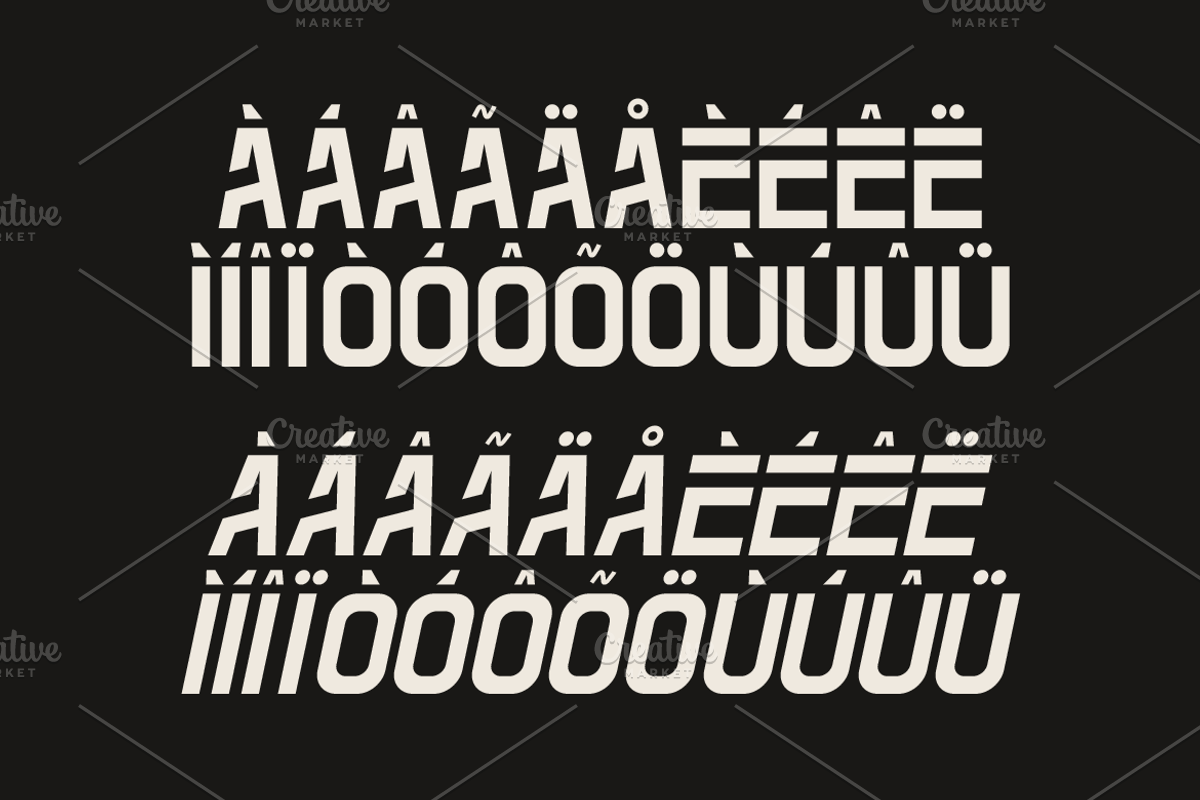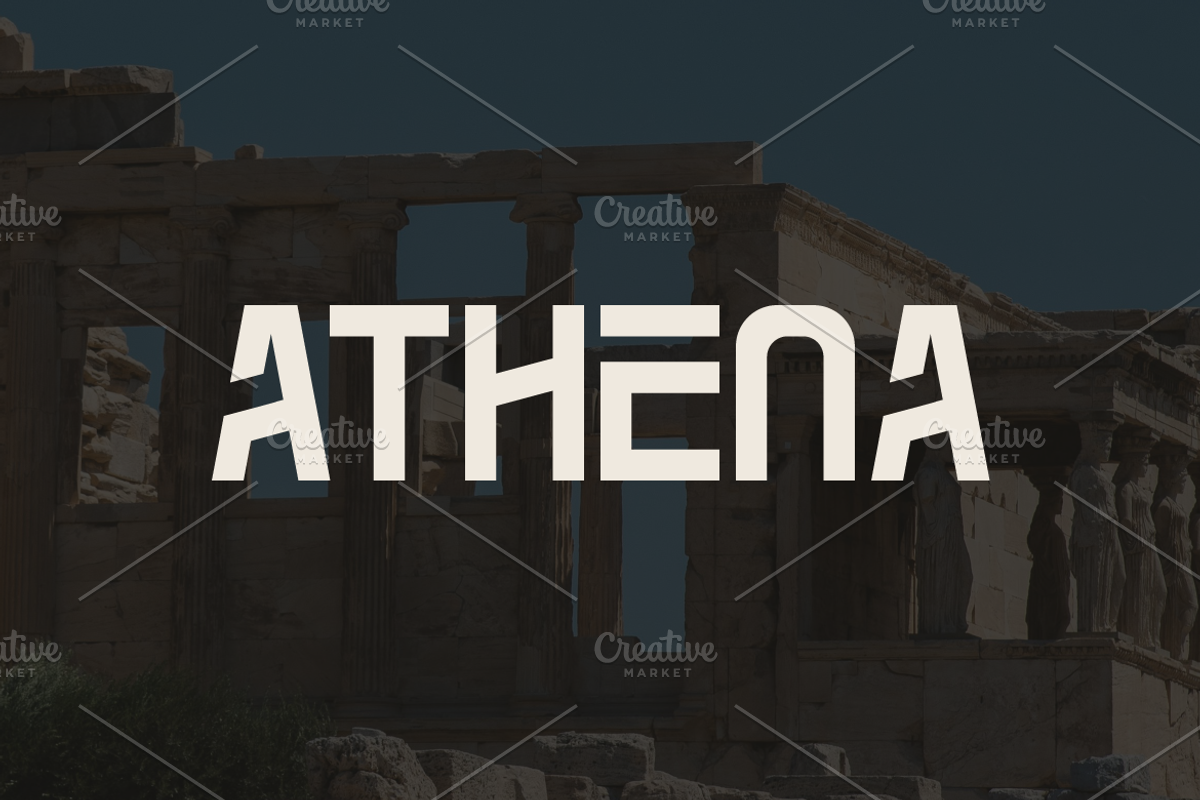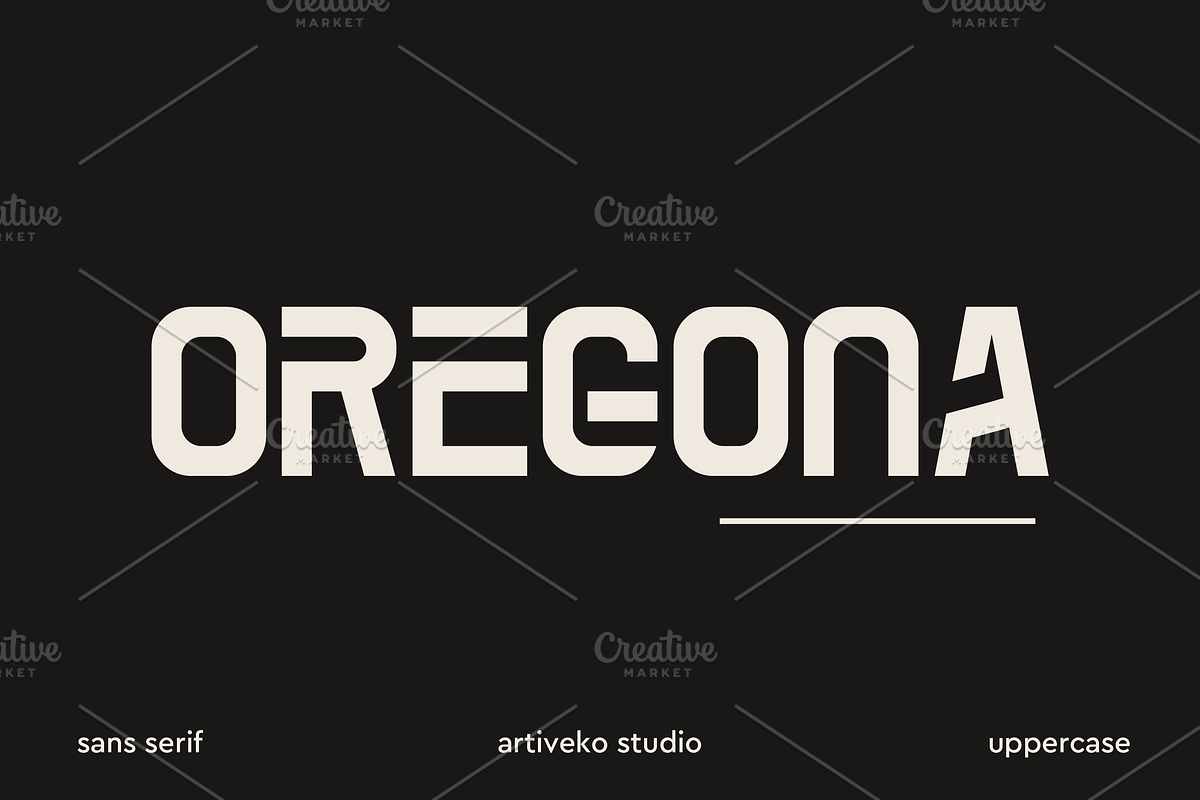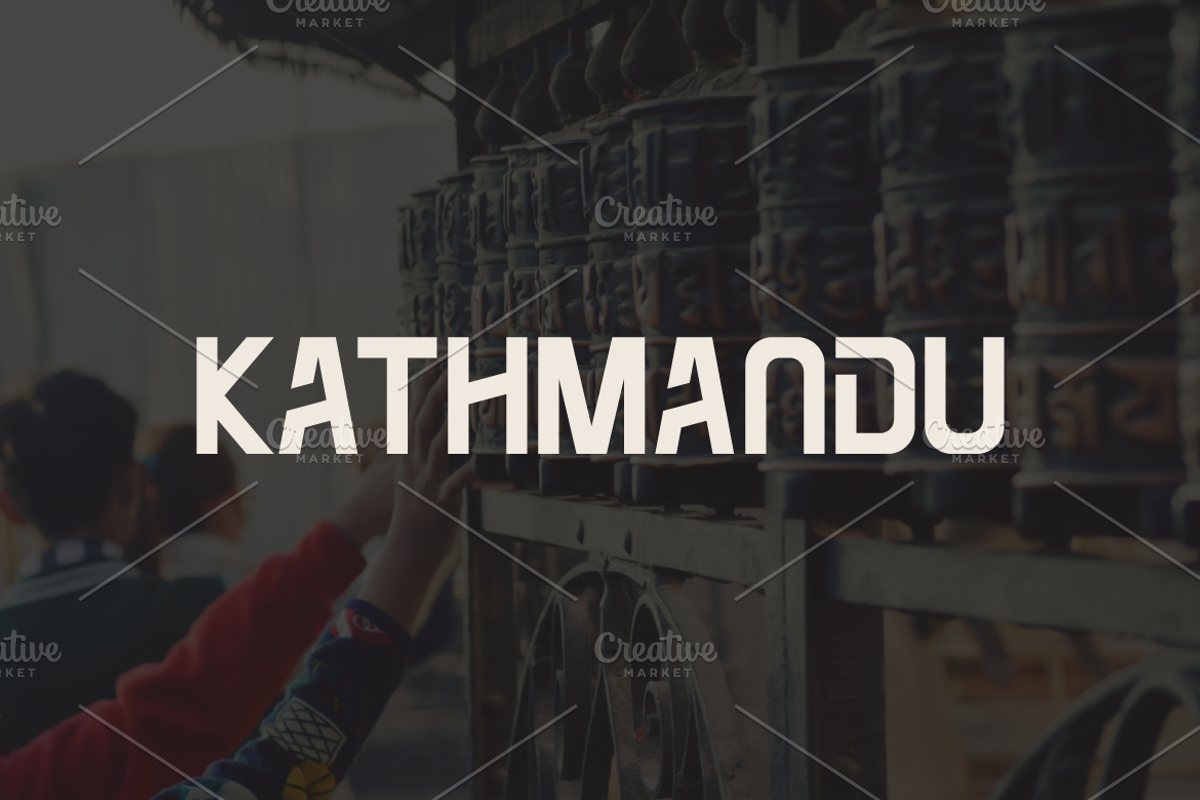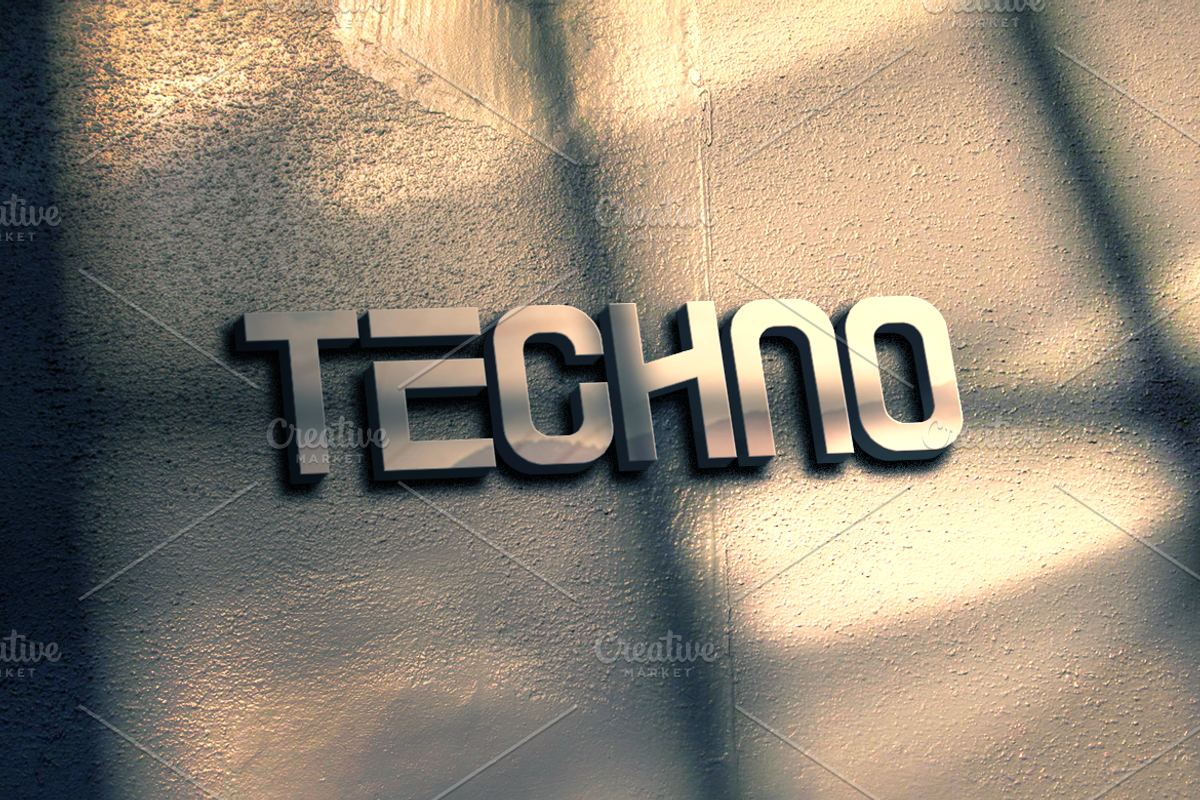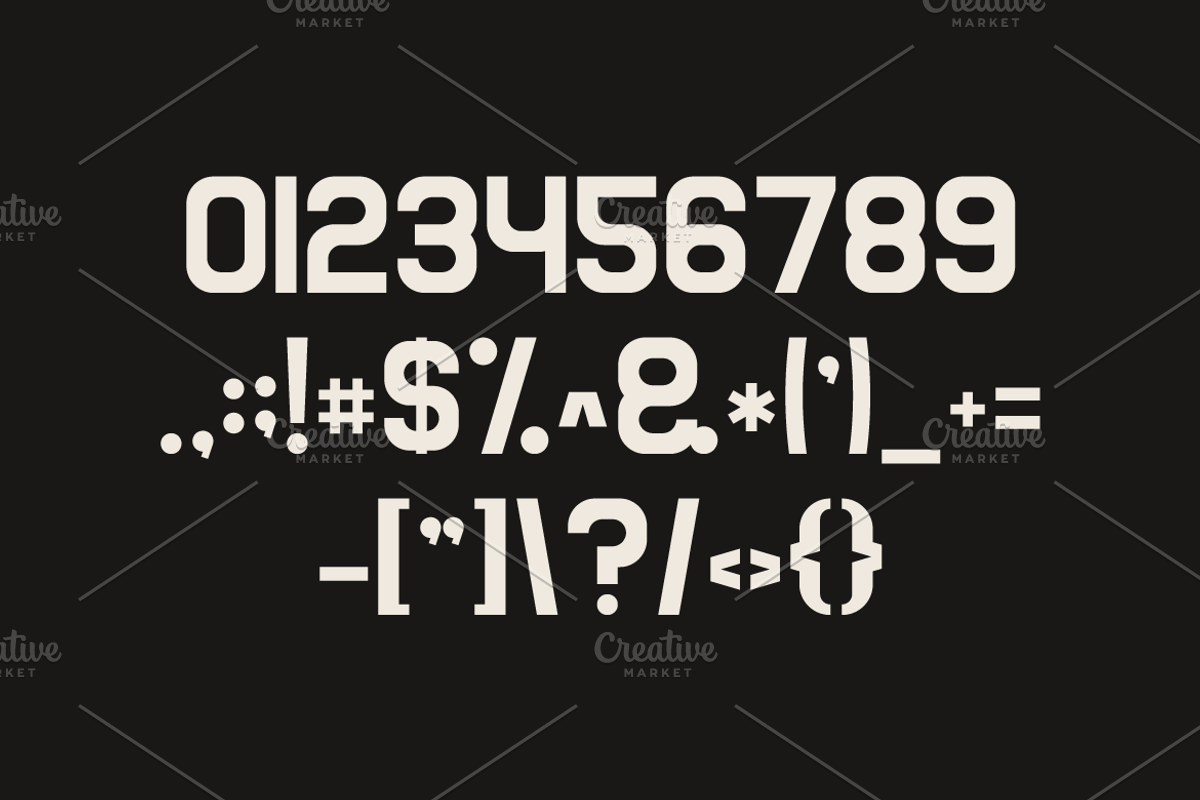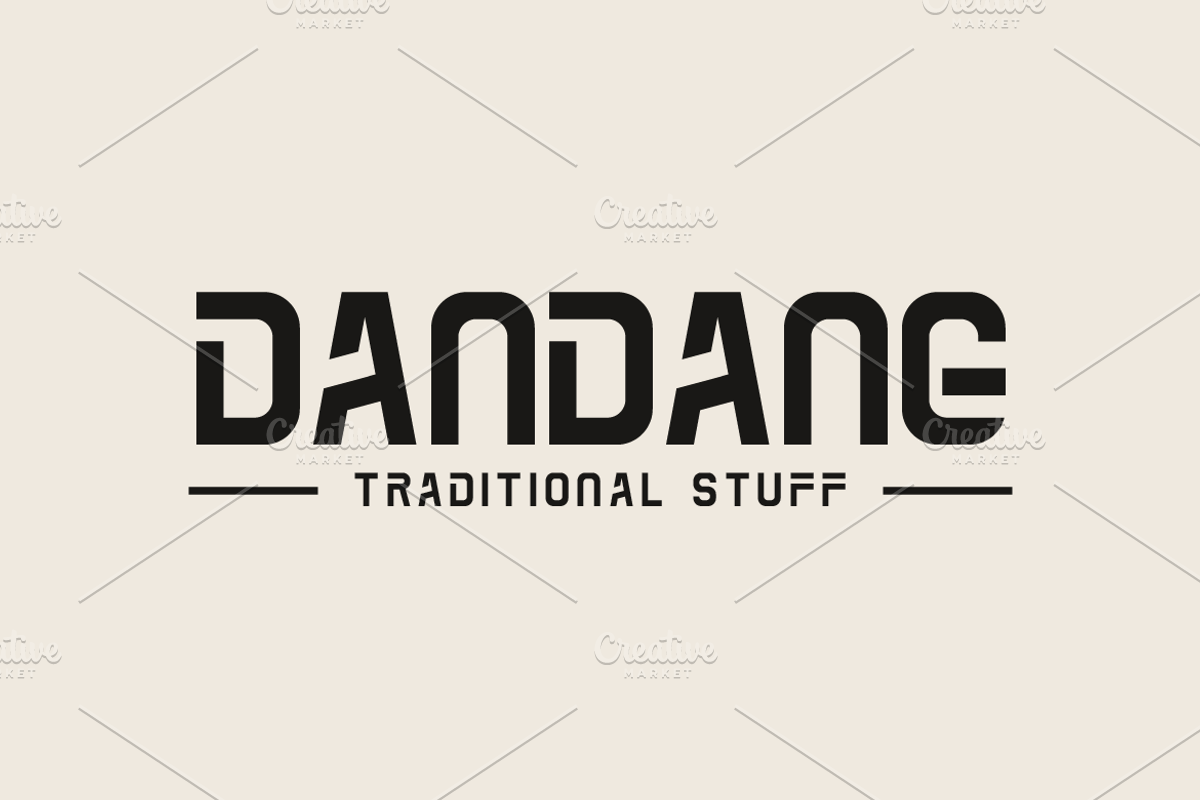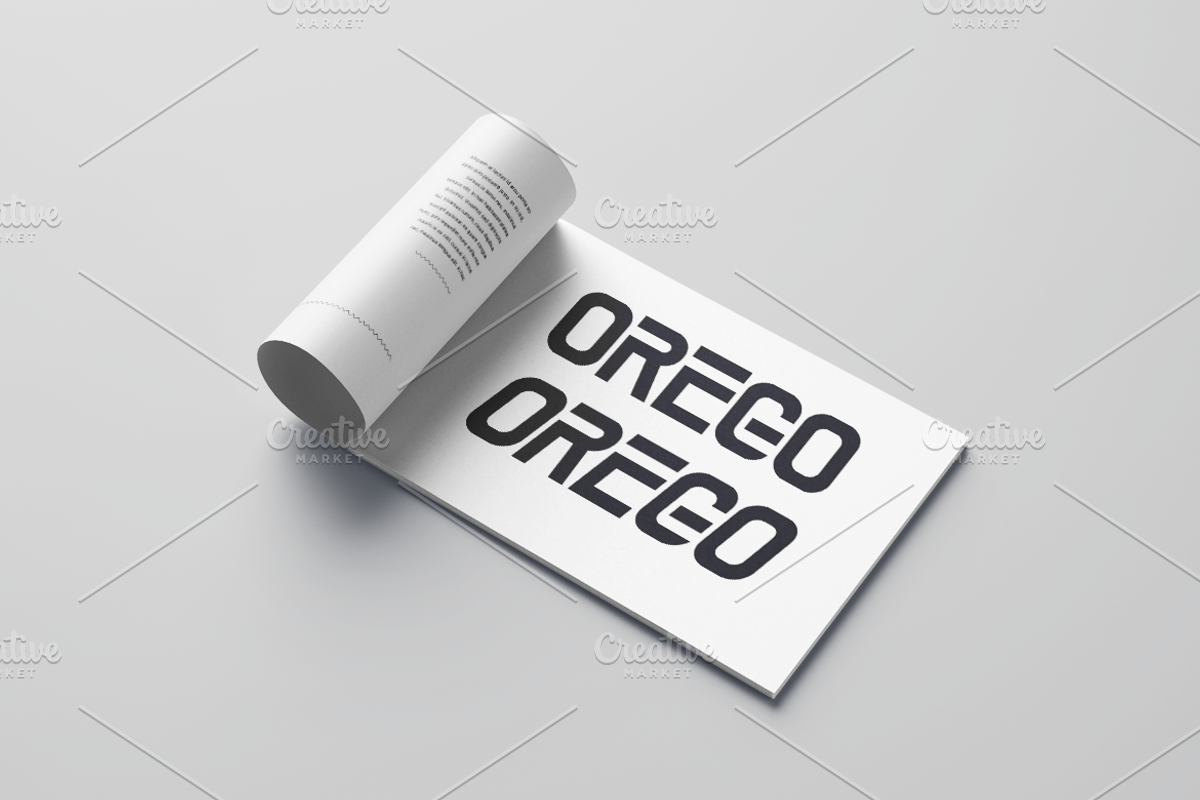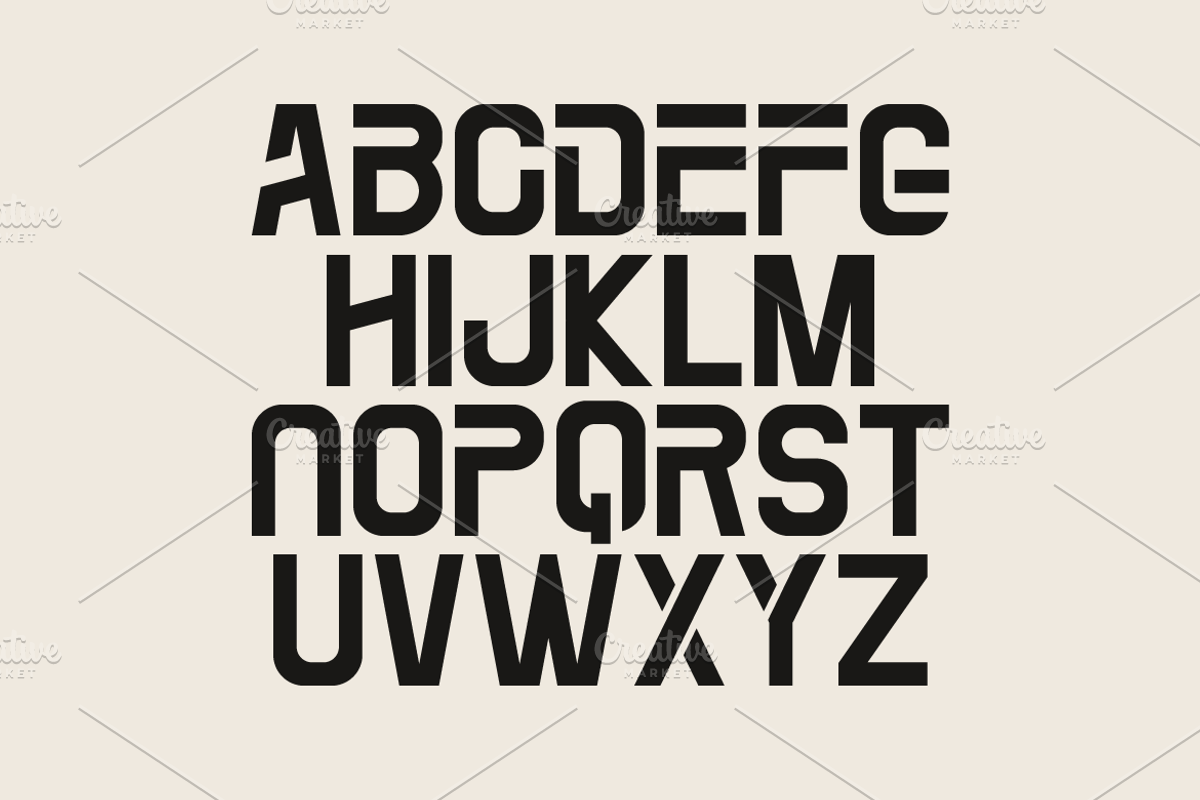
Oregona Condensed Sans Serif
Oregona is a robust condensed sans serif font crafted by Iwan Alwan. This unique typeface features distinctive shapes and offers variations in both uppercase and lowercase characters. Oregona stands out with its versatile multilingual support, making it ideal for diverse design needs. Perfect for striking headlines, modern branding, and dynamic layouts, Oregona brings a bold and refined touch to any project.